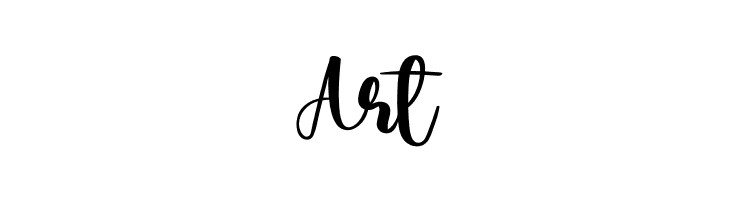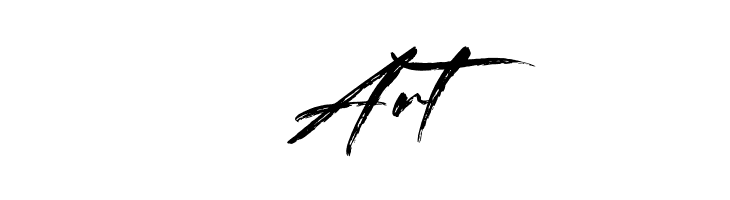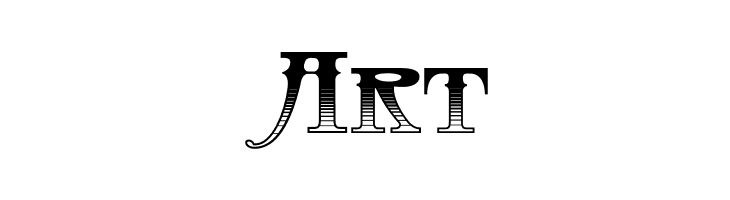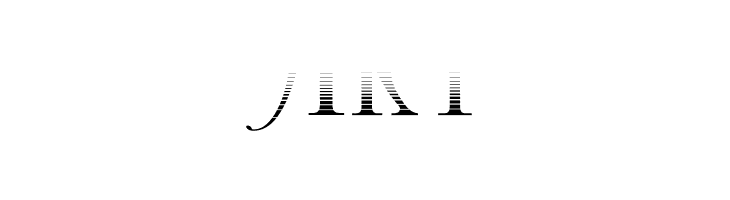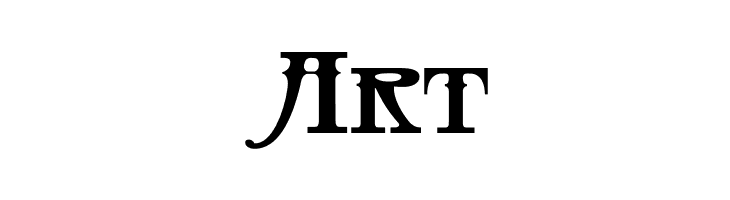
A sophisticated, flowing script font with elegant cursive letterforms.
A casual, elegant handwritten font with flowing cursive letterforms.
A lively and elegant script font with smooth, flowing curves.
A modern, handwritten cursive font with a fluid and elegant style.
A bold, decorative font with a unique inline design and medium weight.
A bold, decorative font with an inline design and shadow effect.
A bold, decorative font with a unique inline design and strong serifs.
A dynamic and expressive script font with bold, artistic brush strokes.
A bold, elegant script font with flowing curves and sophisticated style.
A bold and elegant script font with flowing, cursive letterforms.